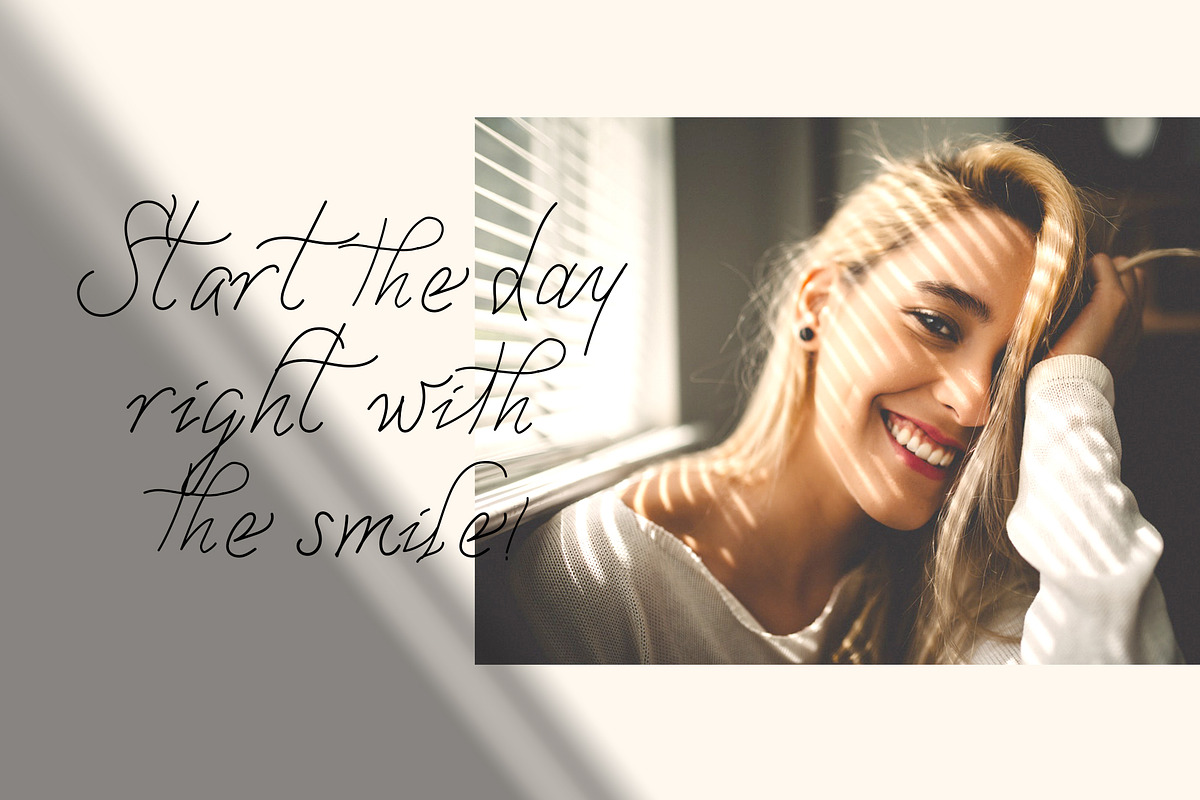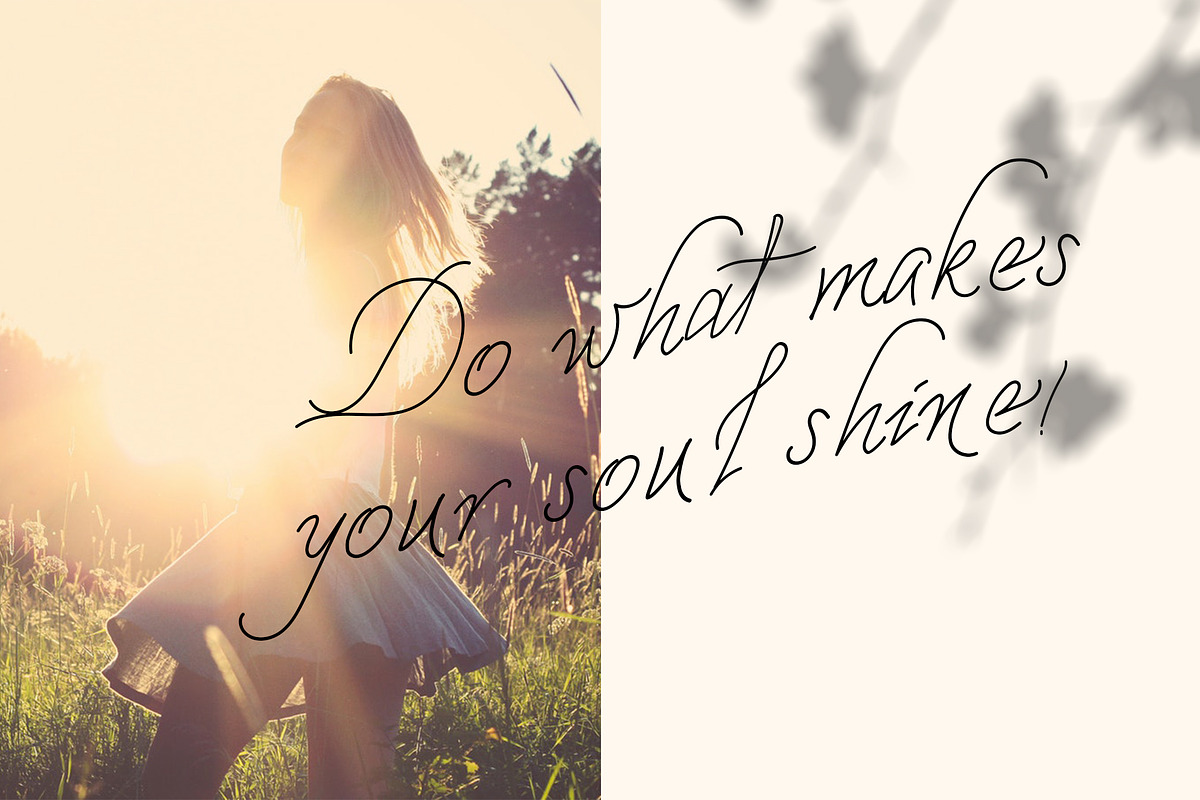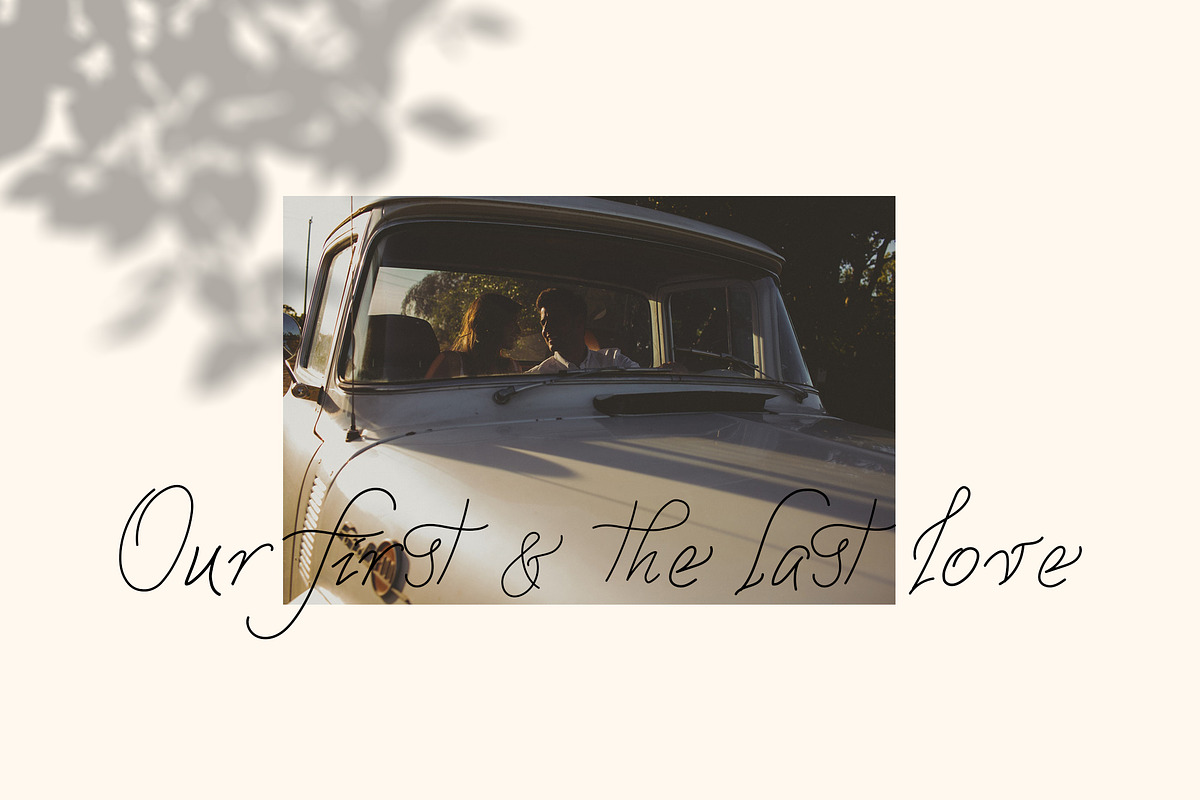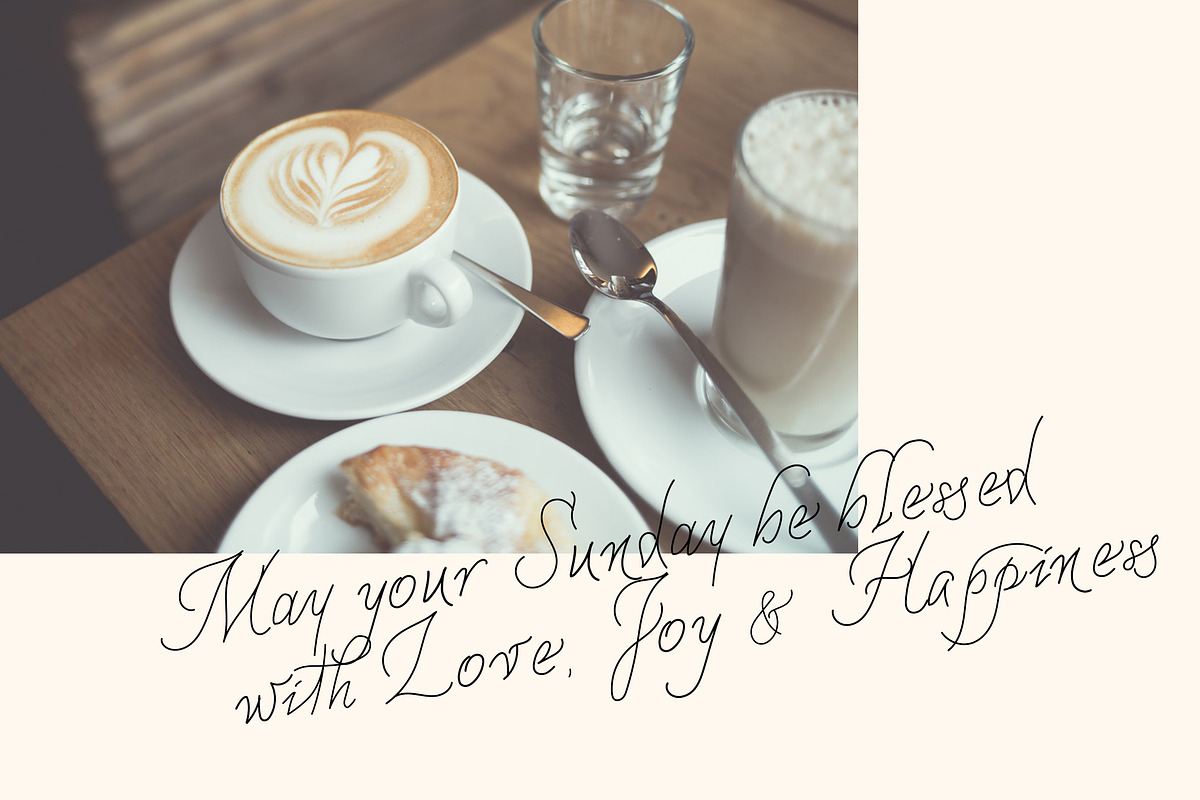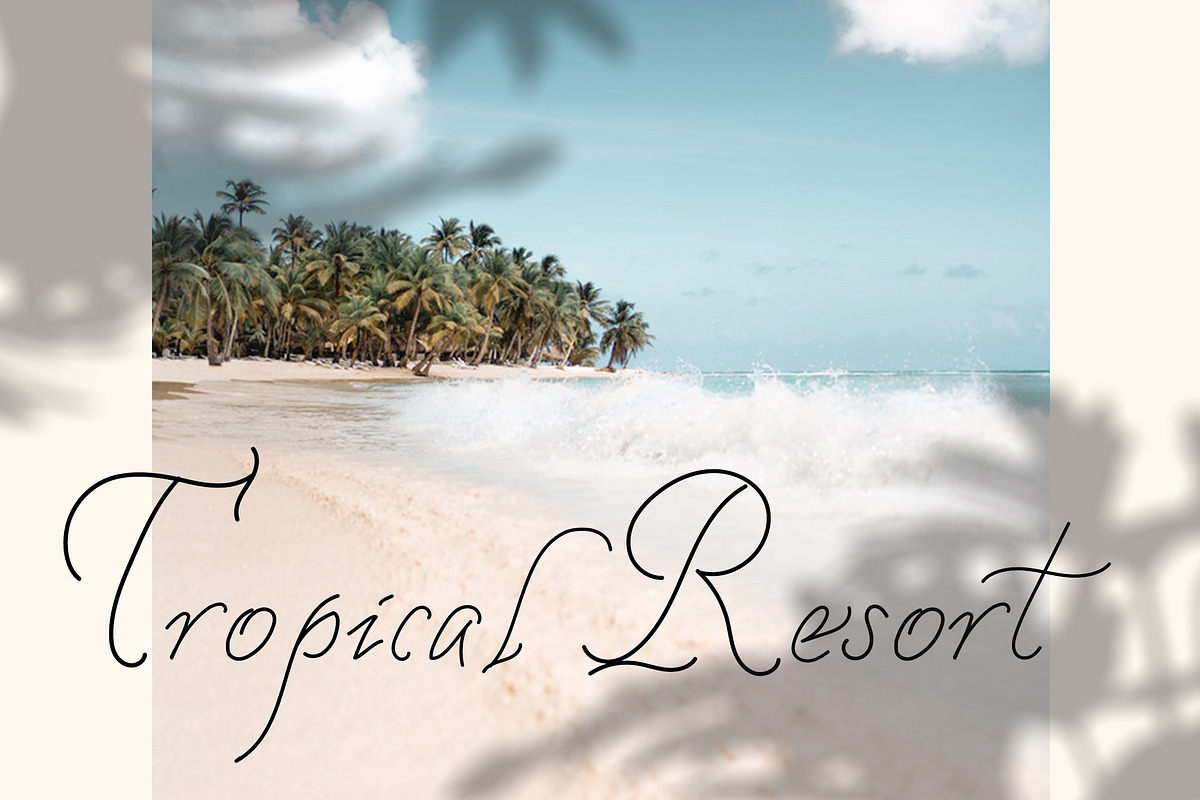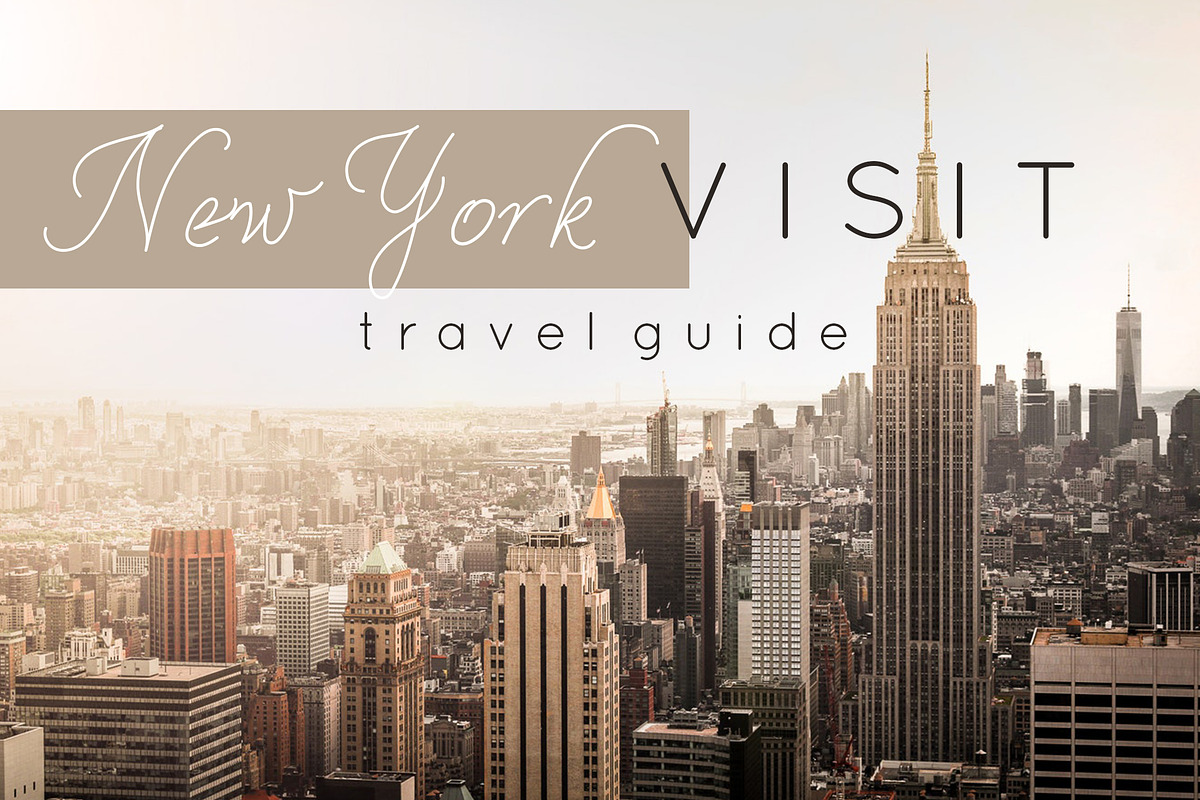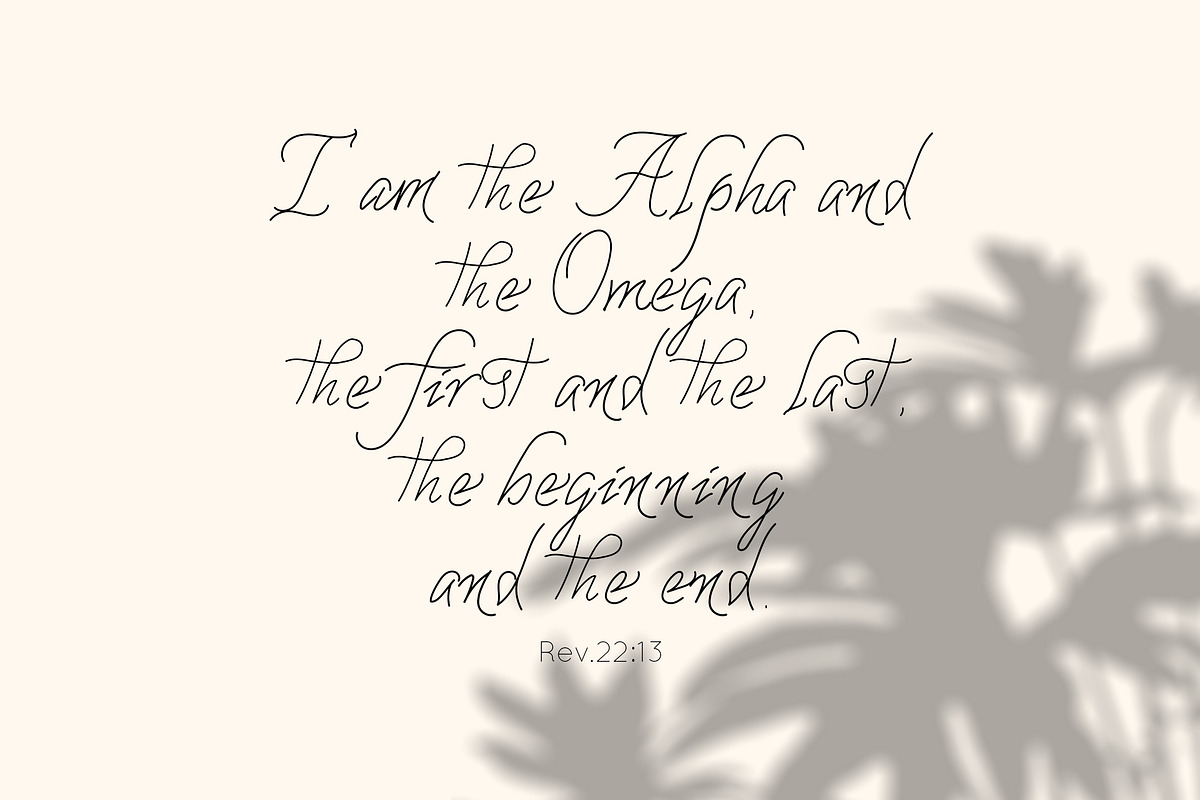
Alpha & Omega signature script font
Introducing the new Alpha & Omega font which looks very natural and fashionable at the same time. It reflects the warmest feelings and helps you to create special and touching typographical design for every day or the happiest day in life. It is really new, universal and modern font .
Alpha & Omega is perfect for multiple contexts. Works great in posters, logos, headlines, packaging, advertising, branding and so much more. This font will easily help you to create the best romantic or elegant design. This font will help you to make your projects trully handwritten realistic and natural. As this font looks close to a natural handwritten script, there are not only uppercase and lowercase characters, numbers and punctuations, but also alternates and ligatures.
Alpha & Omega has multiligual support (French, German, Italian, Norwegian, Portuguese, Spanish, Swedish, Swiss German).